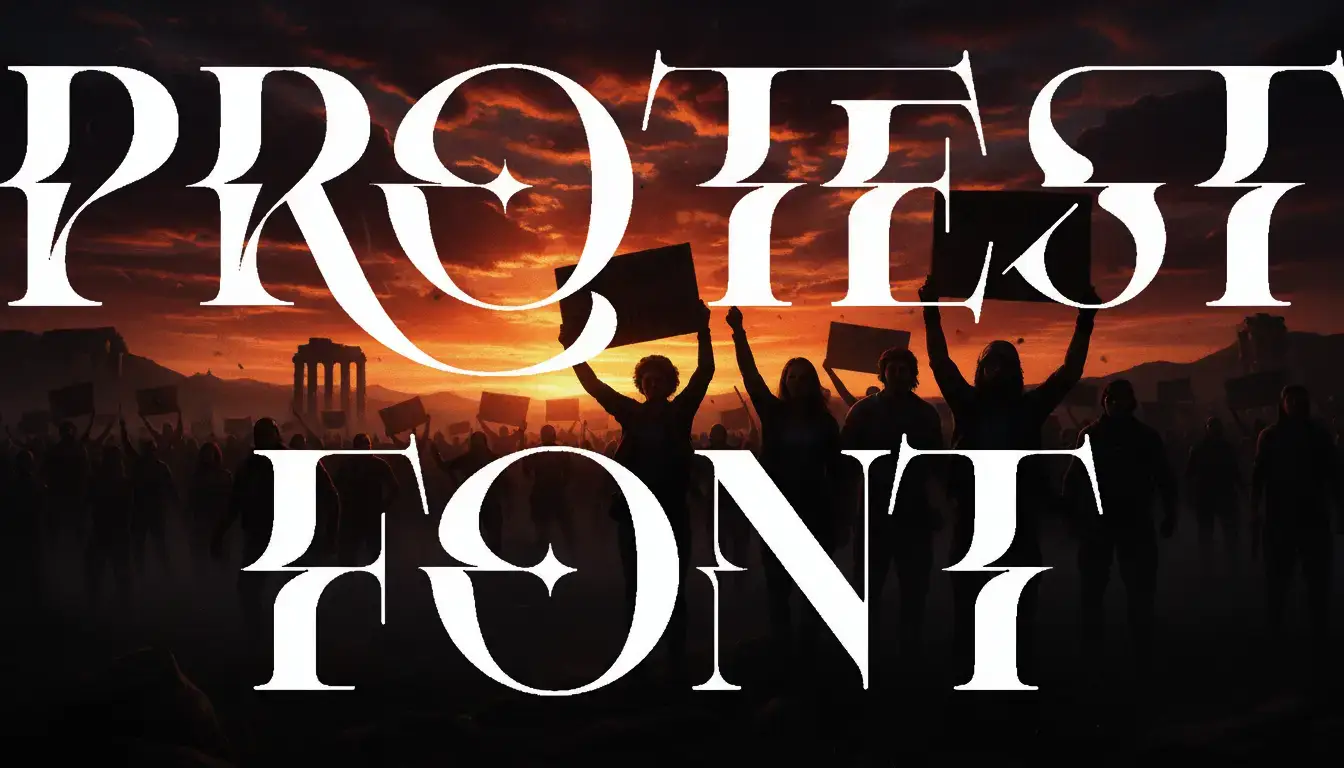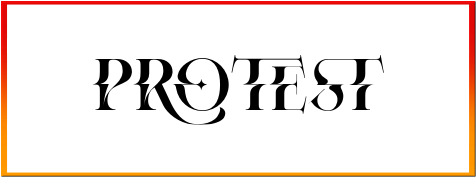
Protest Font
Protest is a fancy font designed by 177Studio.com. Bold and full of character, it's built to stand out rather than blend in. You can download it for free and test it with your own words in the preview above.
What You Can Type With Protest
Protest covers the full alphabet in upper and lowercase, plus all ten numbers, so you can set names, dates and prices without switching fonts. Common punctuation such as &, !, ? and @ is included as well. It also has the accented letters you need for Spanish, French, Portuguese and Italian.
Where Protest Works Best
Protest is a natural fit for posters, logos and eye-catching headlines. Use it for one standout word or headline and let simpler fonts handle the rest.
Does Protest support accented letters?
Yes. Protest includes the accented letters needed for Spanish, French, Portuguese and Italian, so it works for more than just English.